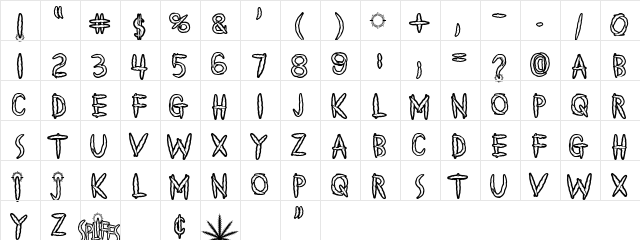
Spliffs Regular
Design Context for Spliffs Typeface
Spliffs is a composed and adaptable typeface that performs quietly and consistently across a wide range of design contexts.